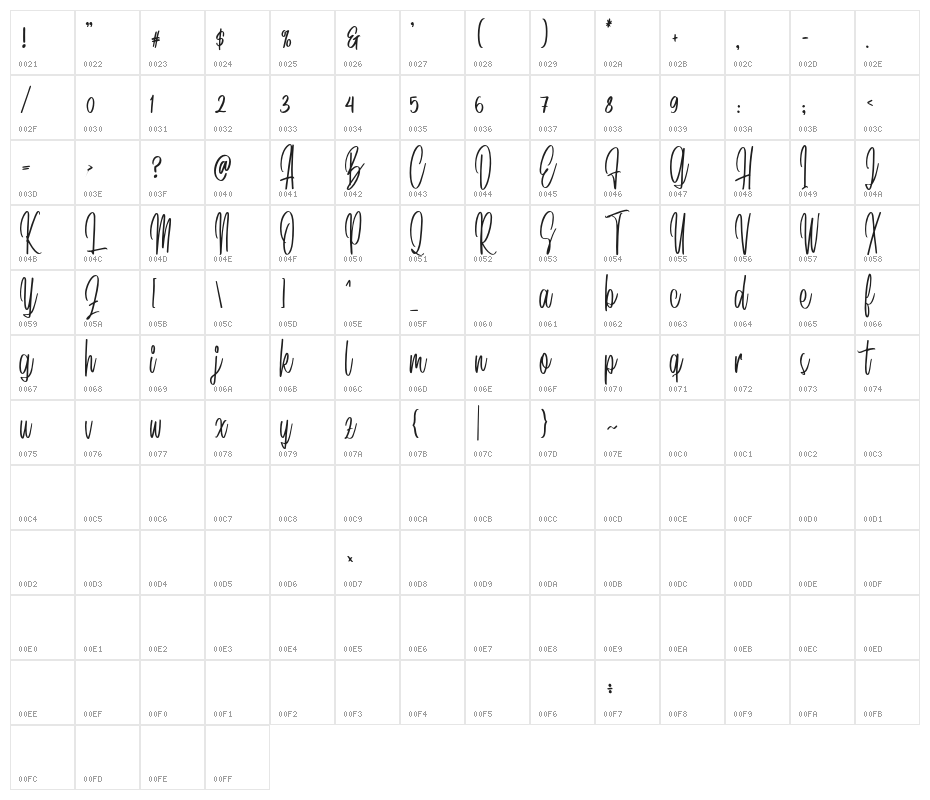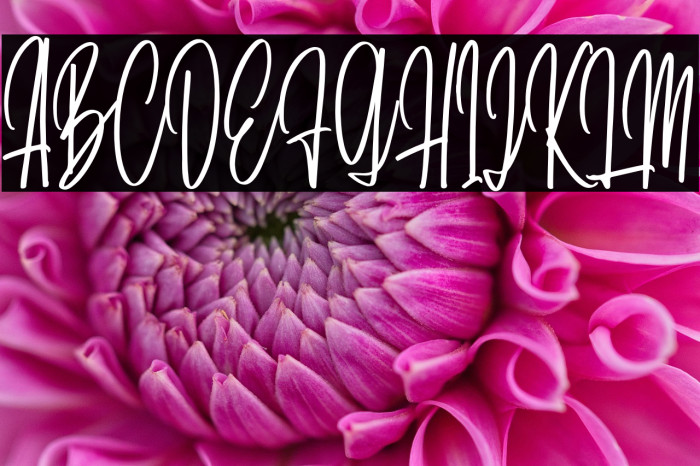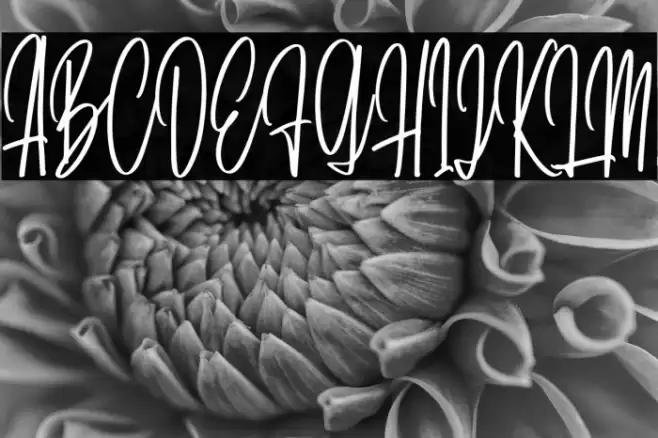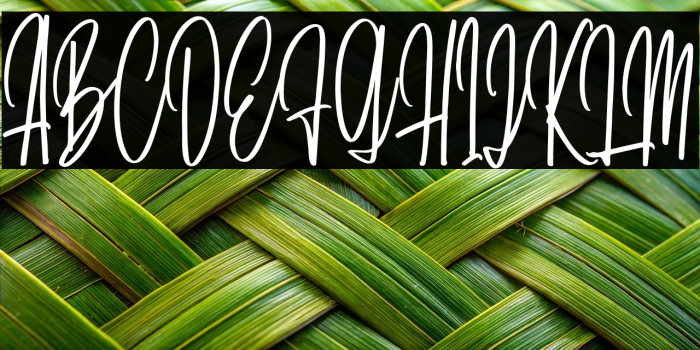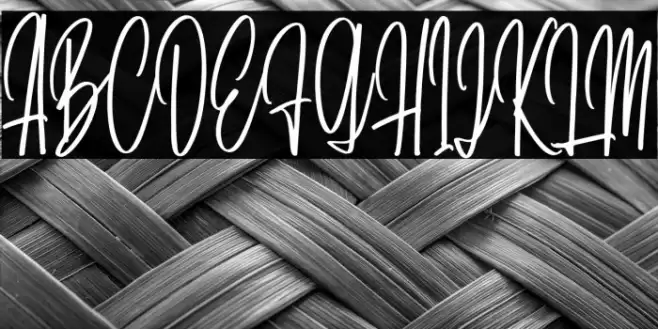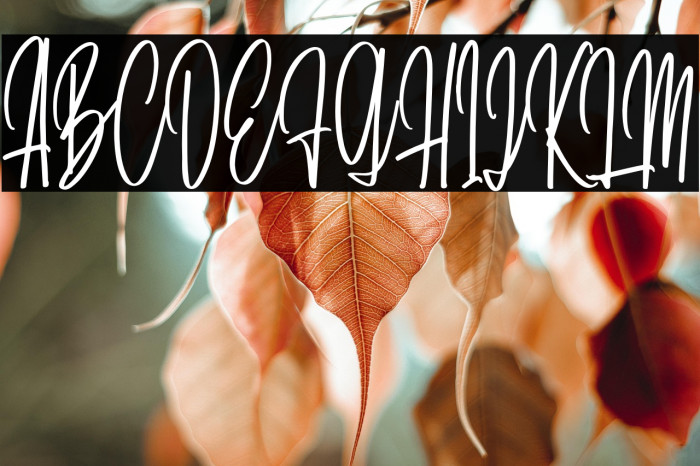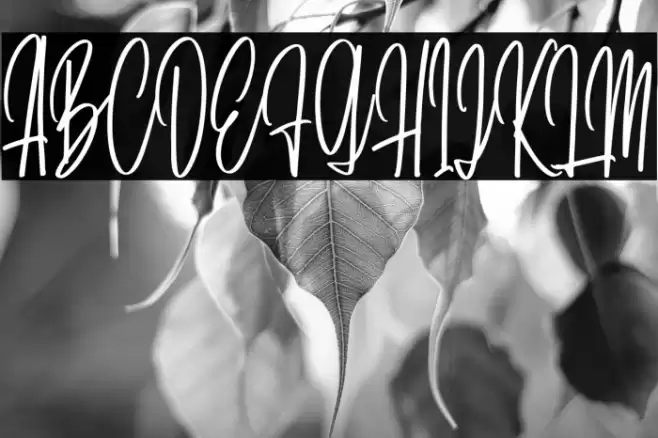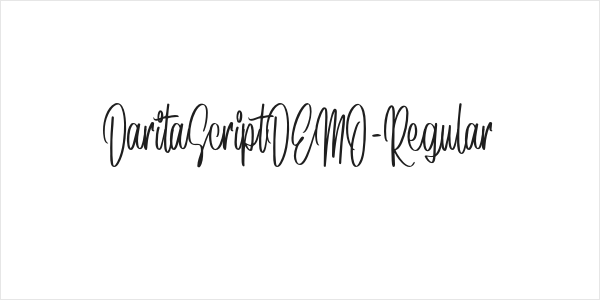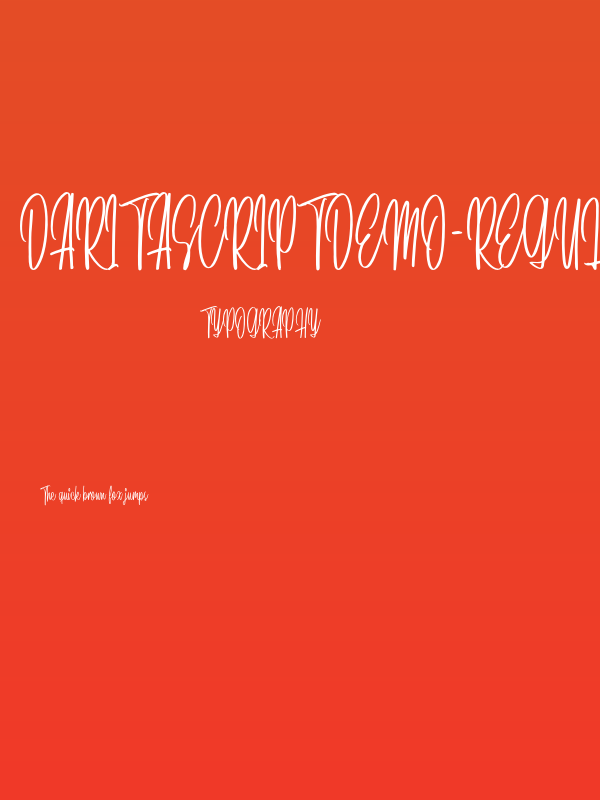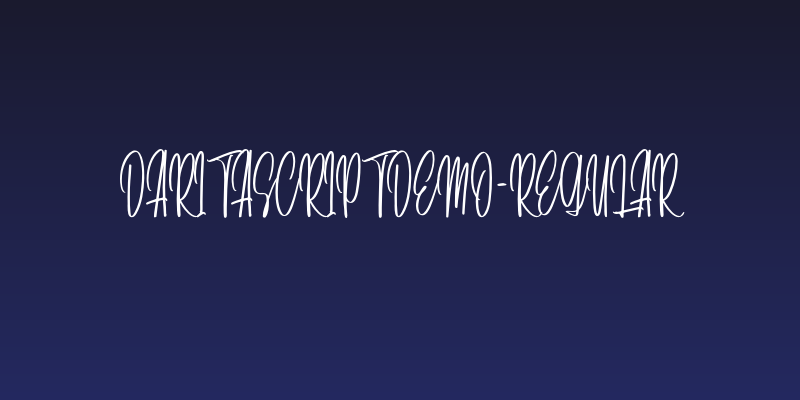
DaritaScriptDEMO-Regular Font
DaritaScriptDEMO-Regular Description
This font features an elegant and flowing script style, characterized by its smooth, continuous strokes and a handwritten appearance. The uppercase letters are tall and slender, with intricate loops and swirls that add a touch of sophistication. The lowercase letters maintain a consistent flow, enhancing readability while preserving the artistic flair. Numbers and special characters are designed to complement the overall aesthetic, making them suitable for decorative purposes. The font's unique style is perfect for projects that require a personal and artistic touch.